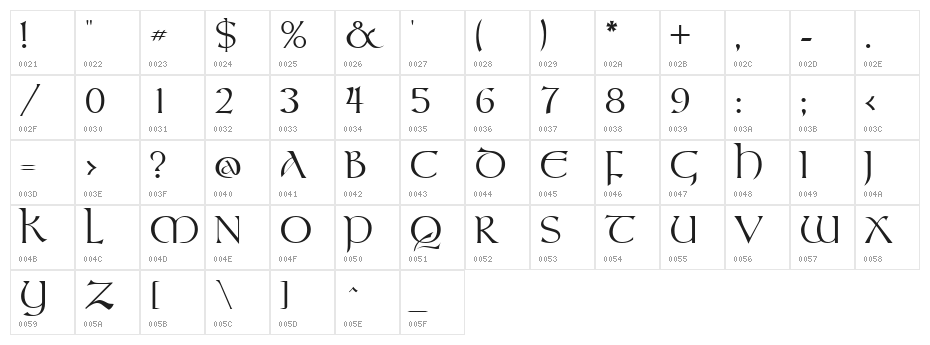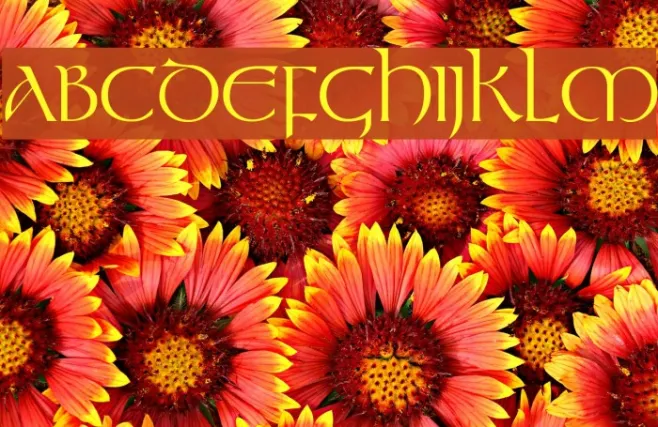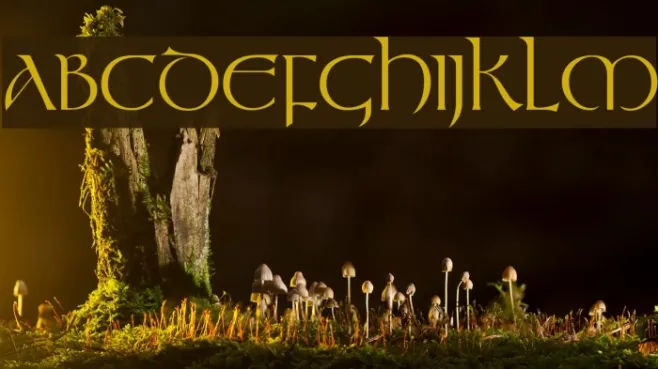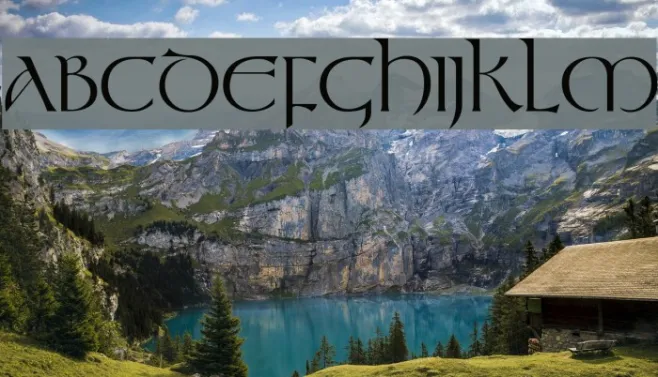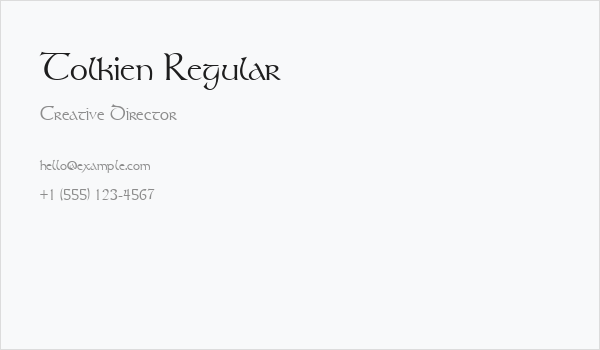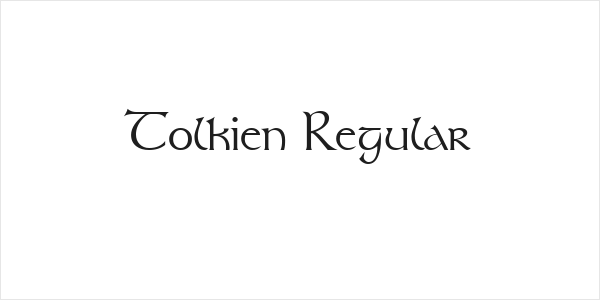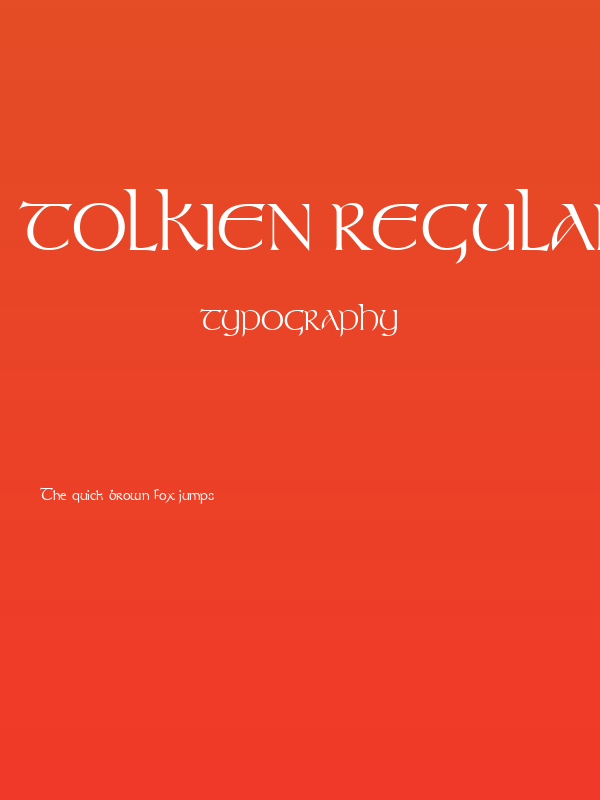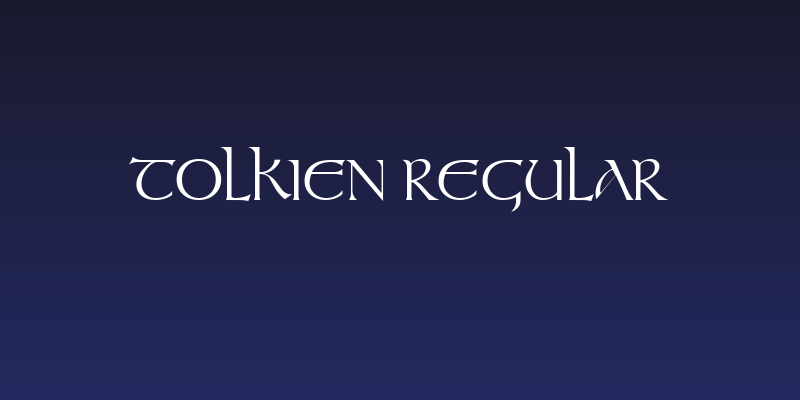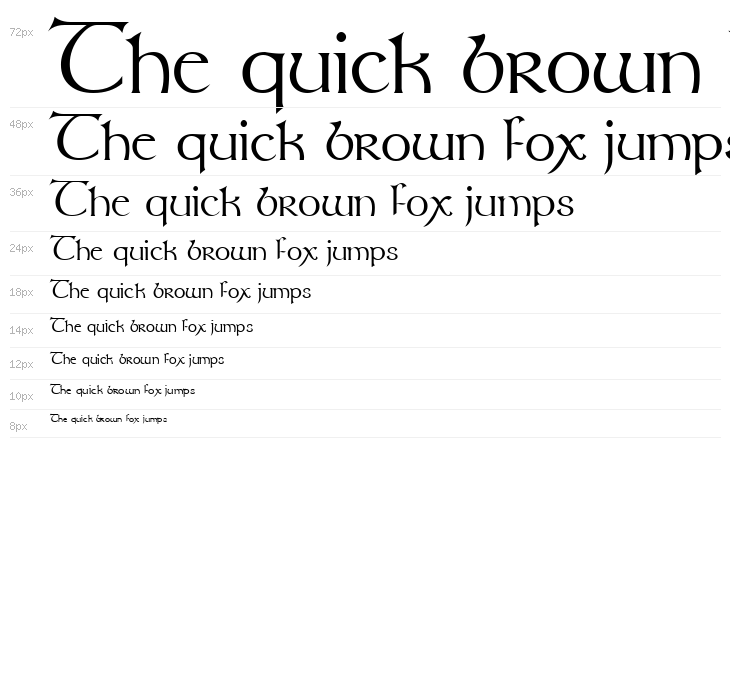
Tolkien Regular Font
Tolkien Regular Description
This font features a distinctive and elegant style, reminiscent of classic fantasy themes. The characters exhibit a unique blend of sharp angles and smooth curves, creating a harmonious balance that is both eye-catching and readable. The uppercase letters are particularly ornate, with intricate details that add a touch of sophistication. The lowercase letters maintain a consistent style, ensuring readability while still carrying the decorative flair. Numbers and special characters are designed to match the overall aesthetic, making this font versatile for various applications. The overall impression is one of elegance and fantasy, suitable for projects that require a touch of the extraordinary.
| Proposed Projects | Ideal for book covers, fantasy-themed posters, video game graphics, and branding for products with a mystical or historical theme. |